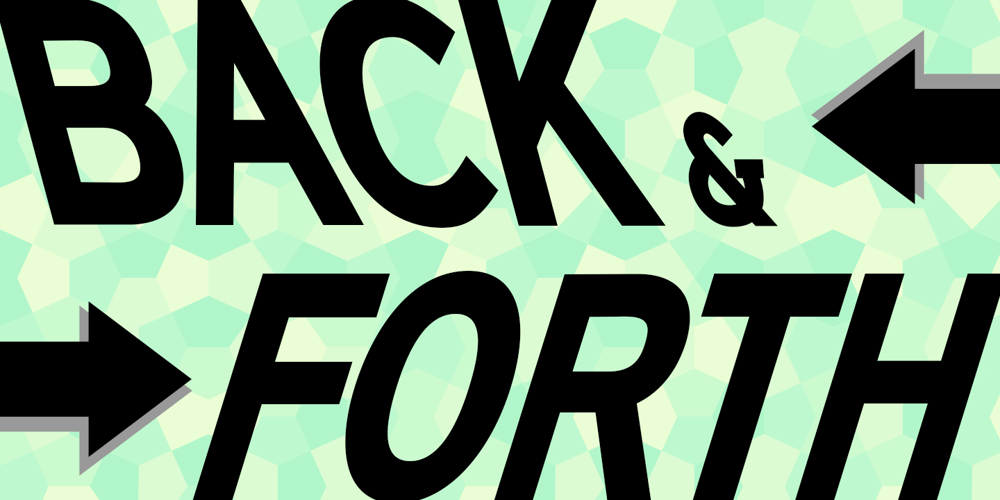
Back And Forth Font Family was designed by Kent Swecker and published by A New Machine. Back And Forth contains 2 styles and family package options. This all cap, bold, sans serif font features one face that slants backward (“Back”) and one that slants forward (“Forth”). Use in combination to create headlines and designs that call for a sense of speed, motion and power. Uppercase and lowercase letters are the same.